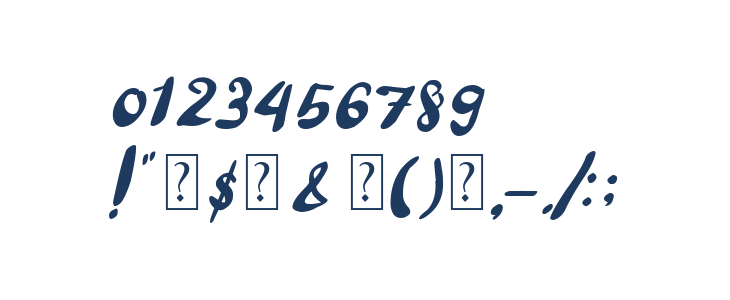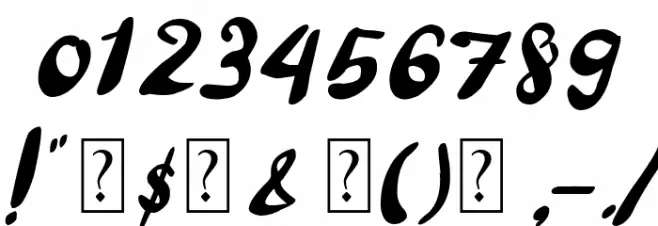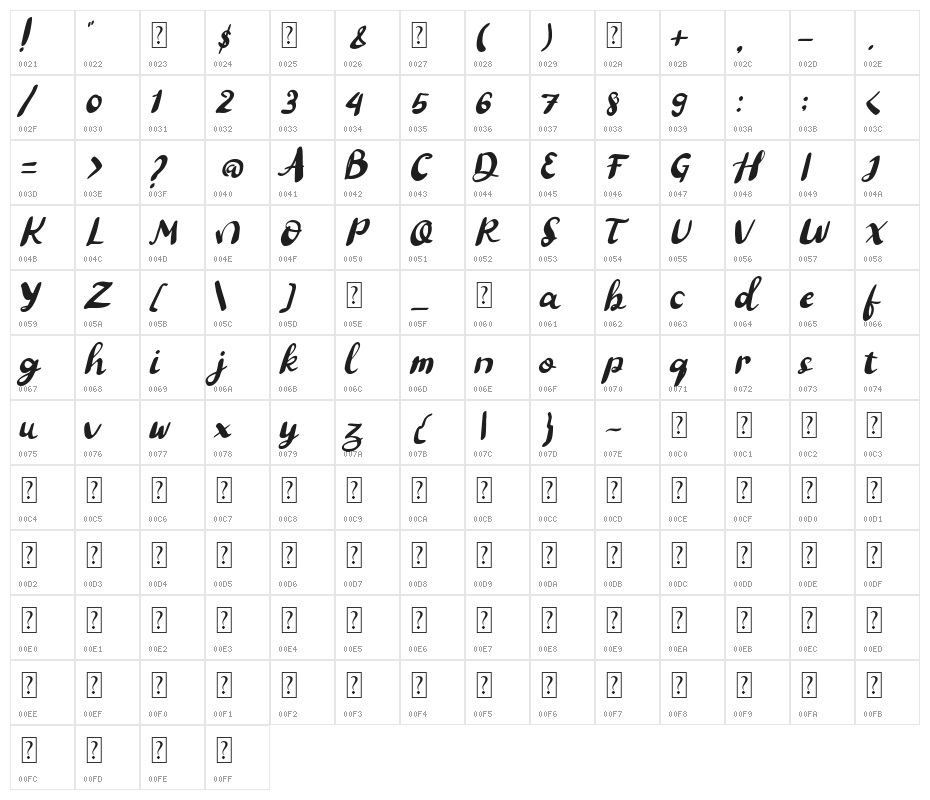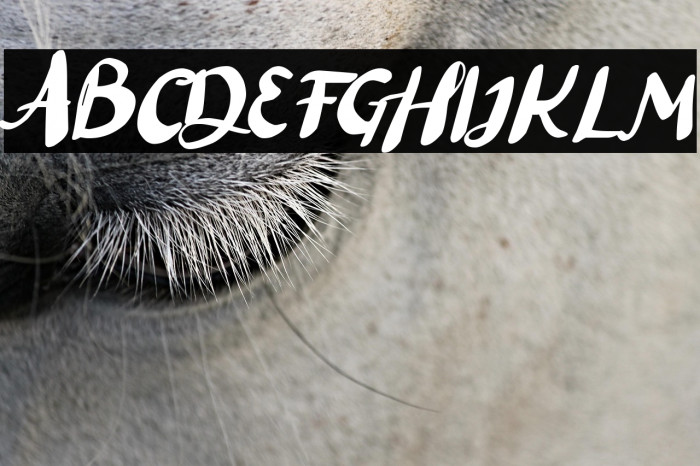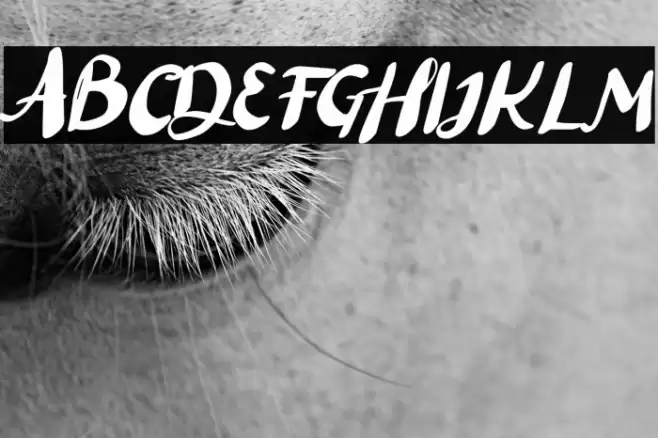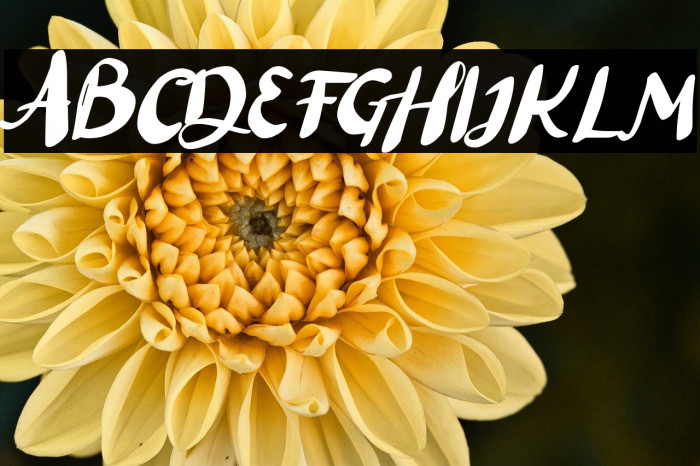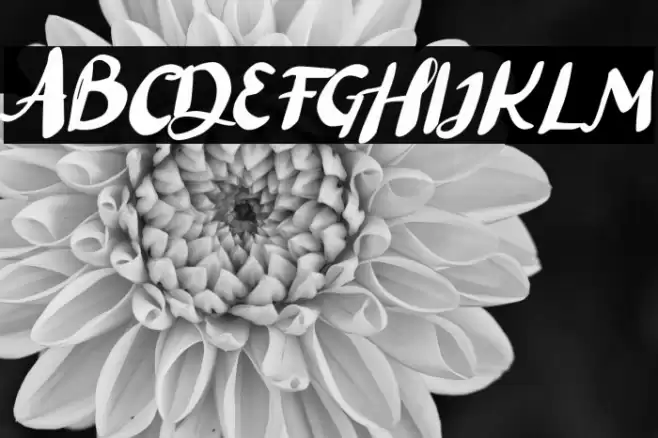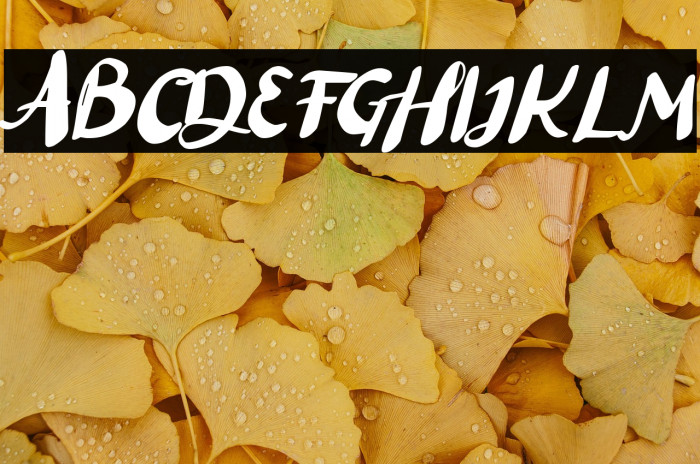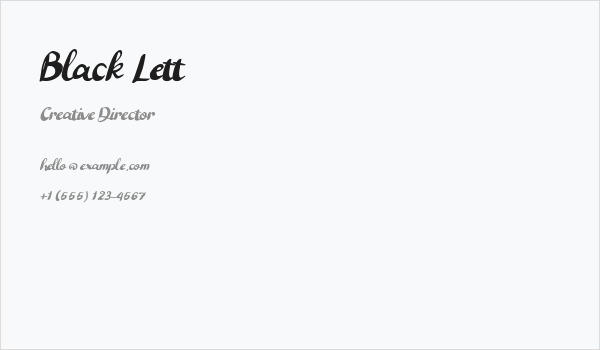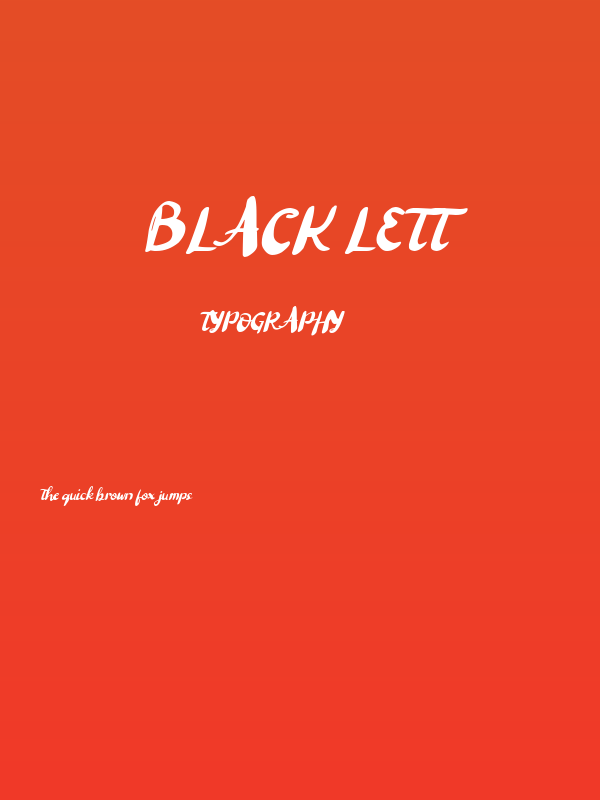
Black Lett Font
Black Lett Description
This font exhibits a bold and expressive style with a handwritten script appearance. The letters are fluid and connected, giving a sense of motion and elegance. The uppercase letters are slightly more structured, while the lowercase letters maintain a casual, flowing look. The numerals are consistent with the overall style, featuring rounded edges and a playful character. Special characters are creatively integrated, maintaining the font's dynamic and artistic feel. This font is ideal for projects that require a personal touch or artistic flair.
Use CaseLogos, Invitations, Artistic Posters
Proposed ProjectsIdeal for wedding invitations, greeting cards, artistic posters, and branding materials that require a personal touch.